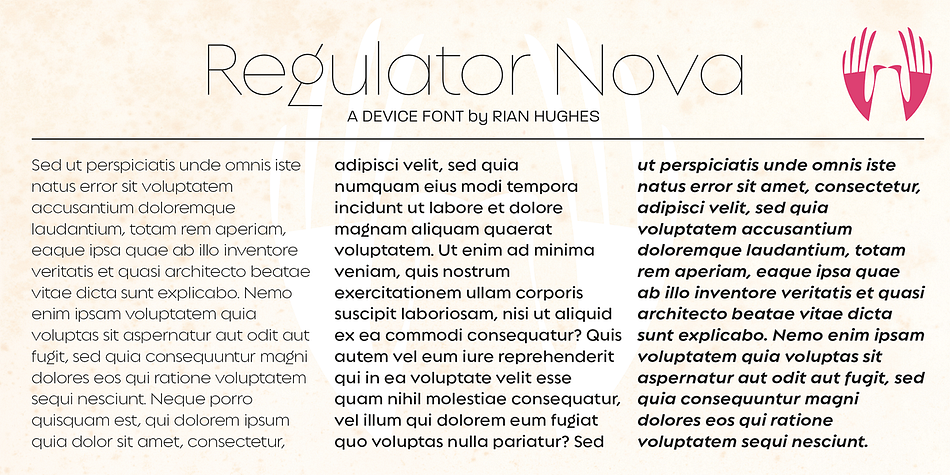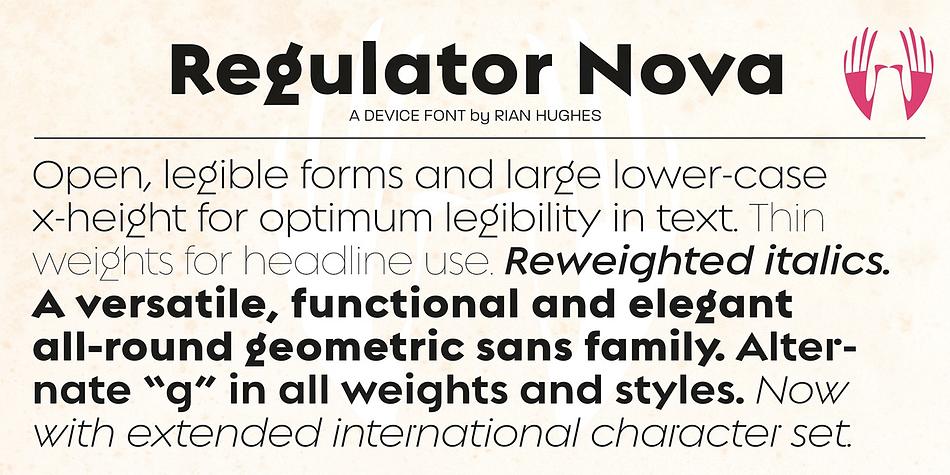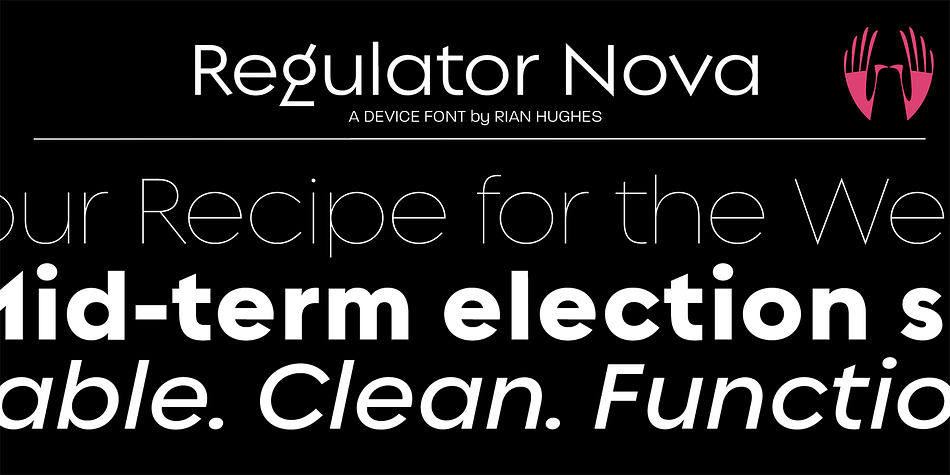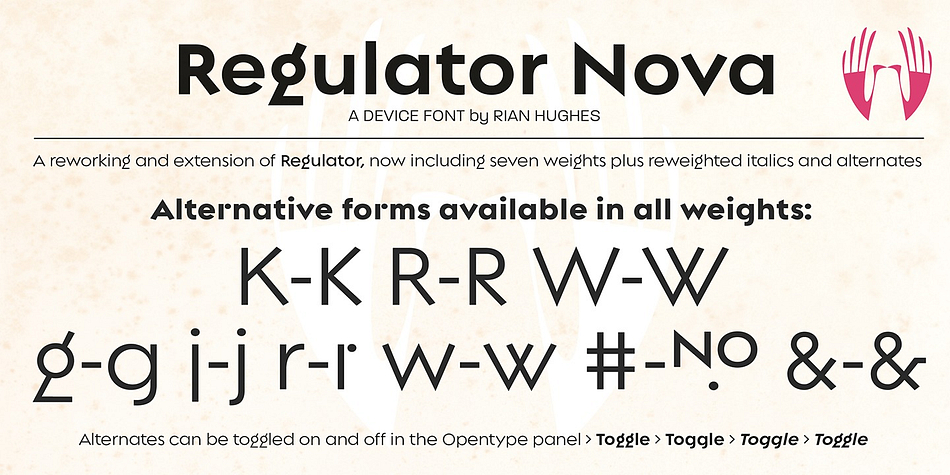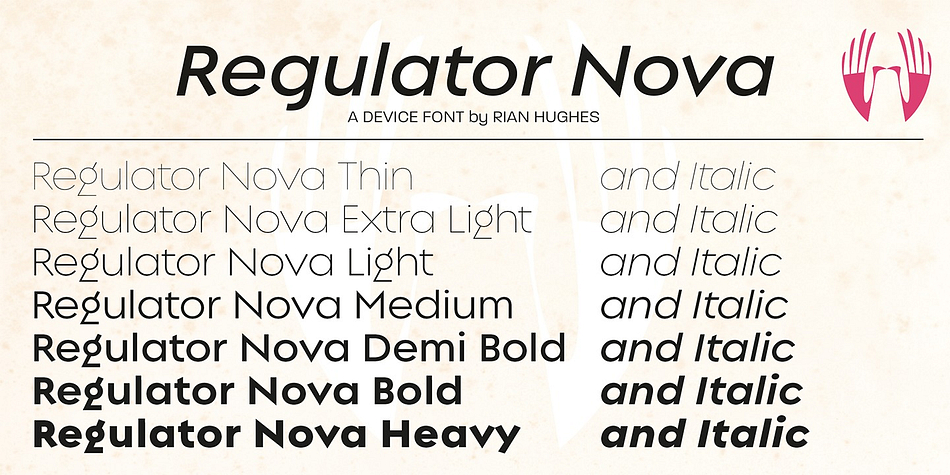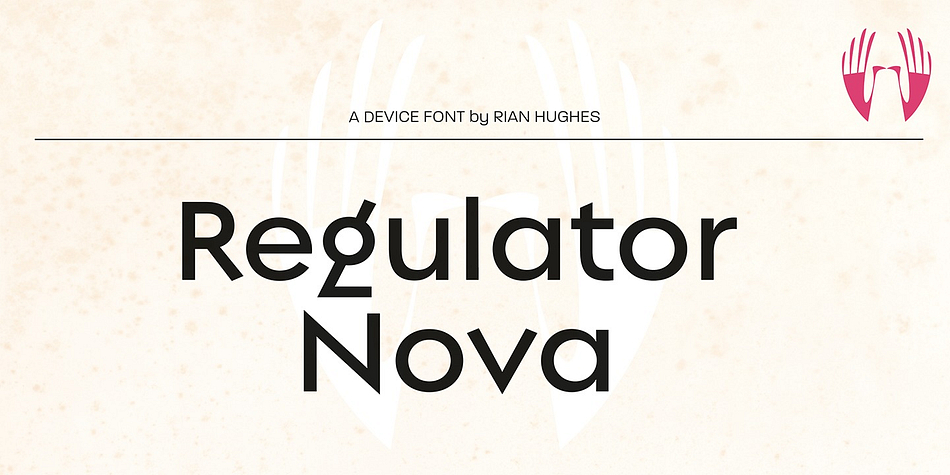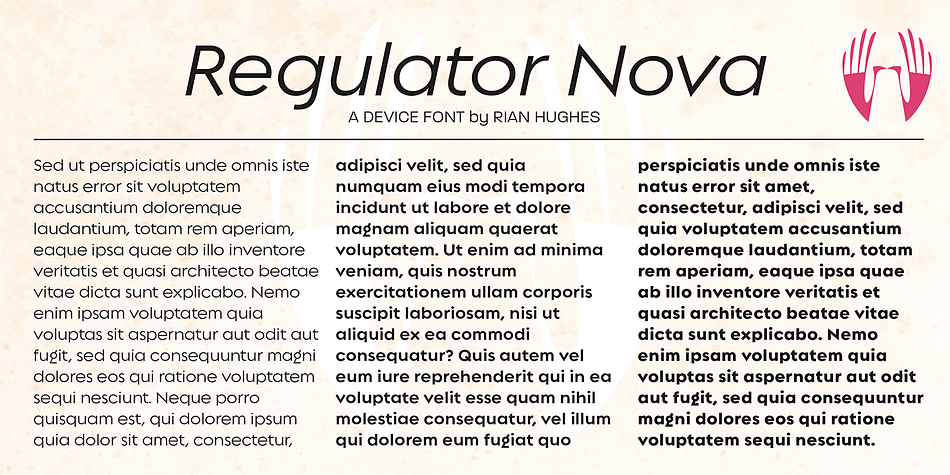
Designed by Rian Hughes, Regulator Nova is a sans serif and dingbat font family. This typeface has fifteen styles and was published by Device.
A high lower-case x-height geometric sans with open counters, Regulator Nova is extremely legible at text sizes and in extended settings while the range of weights also make it suitable for headlines.
The stoke terminals are all cut at close to 90 degrees, lending a sharp precision to the characters. Alternate versions of the g, j, r, w, K, R, W, # and ampersand are available in both upright and italic, and can be toggled on and off in the Opentype panel or the Glyphs palette. Clean, elegant and legible, Regulator Nova has a classical proportions based on a circumscribed circle and square, and shares structural similarities to early sans serifs such as Rudolf Koch’s Kabel, while adopting more British forms for the M and R.
Regulator Nova is an extension and reworking of Regulator, now with extra weights, reweighed italics, Opentype-savvy alternates and a full European character set.